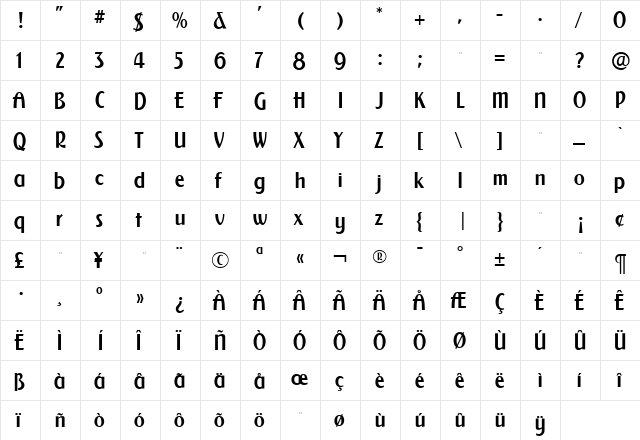
SaintLouisBold Roman
Design Context for SaintLouisBold Typeface
SaintLouisBold is a composed and adaptable typeface that performs quietly and consistently across a wide range of design contexts. The heavy weight commands attention and anchors typographic hierarchies.